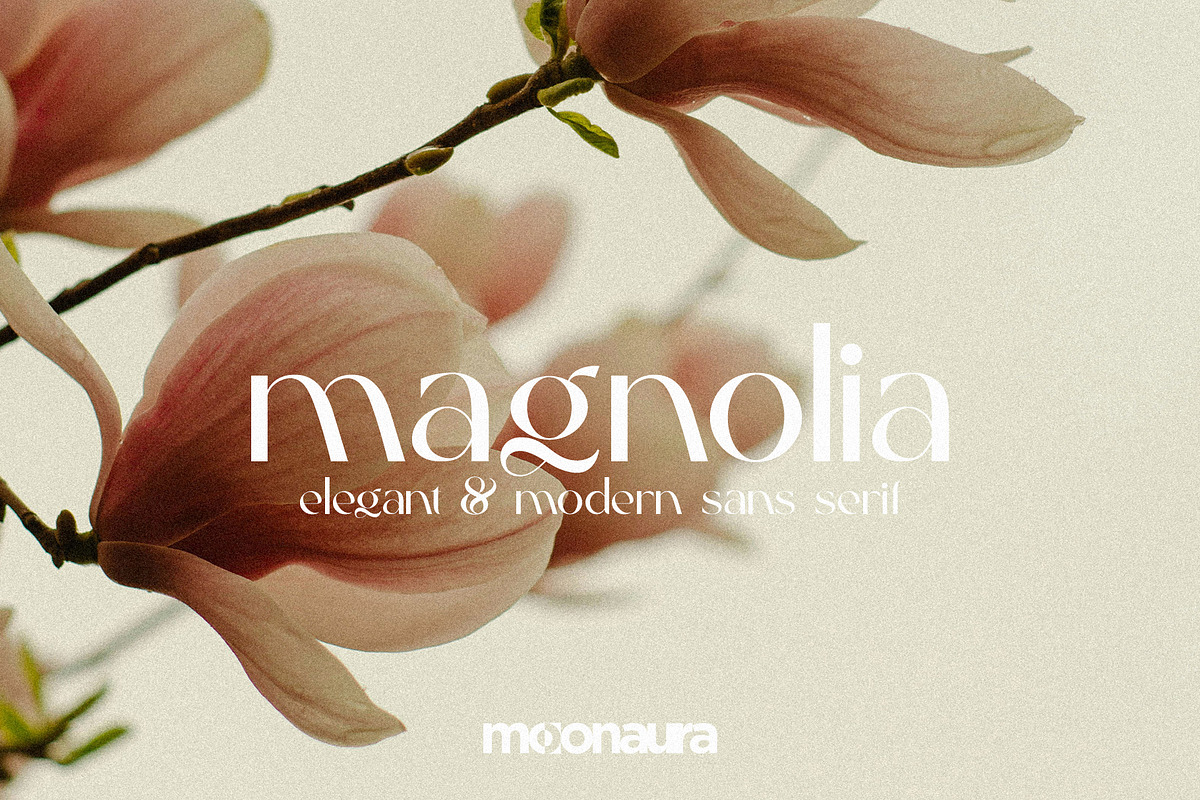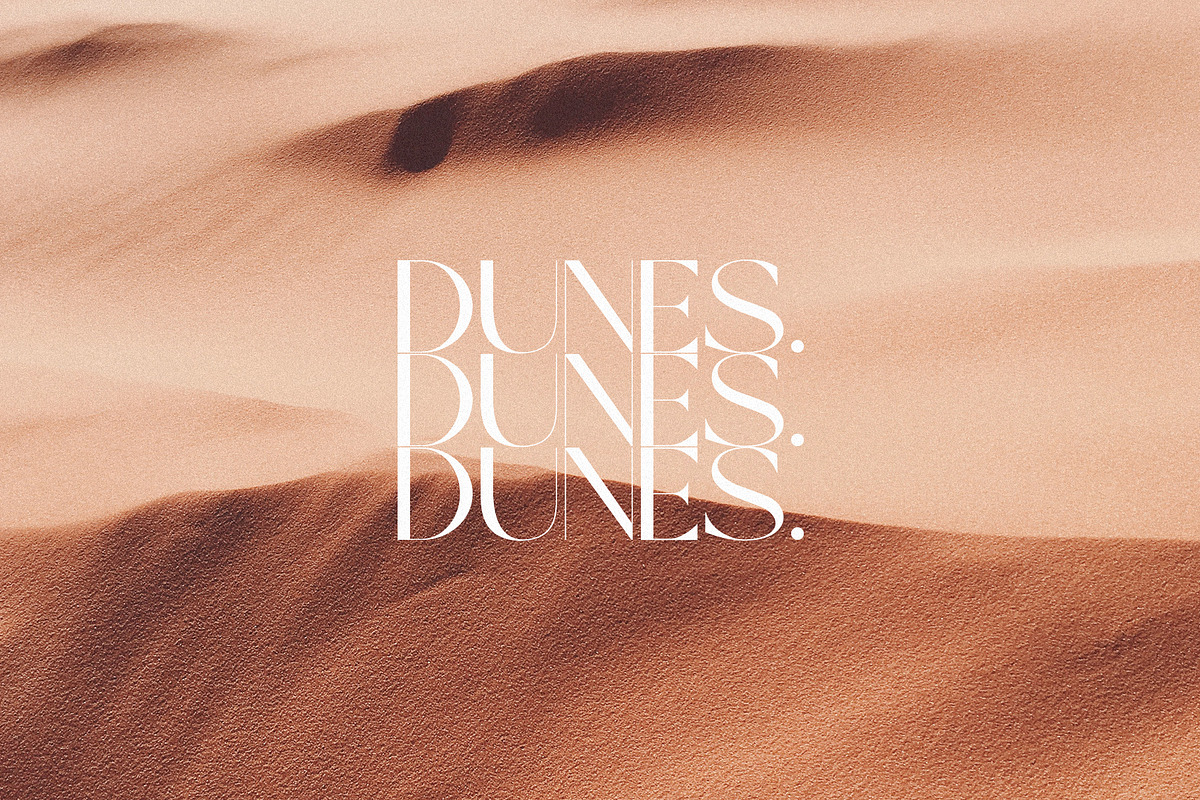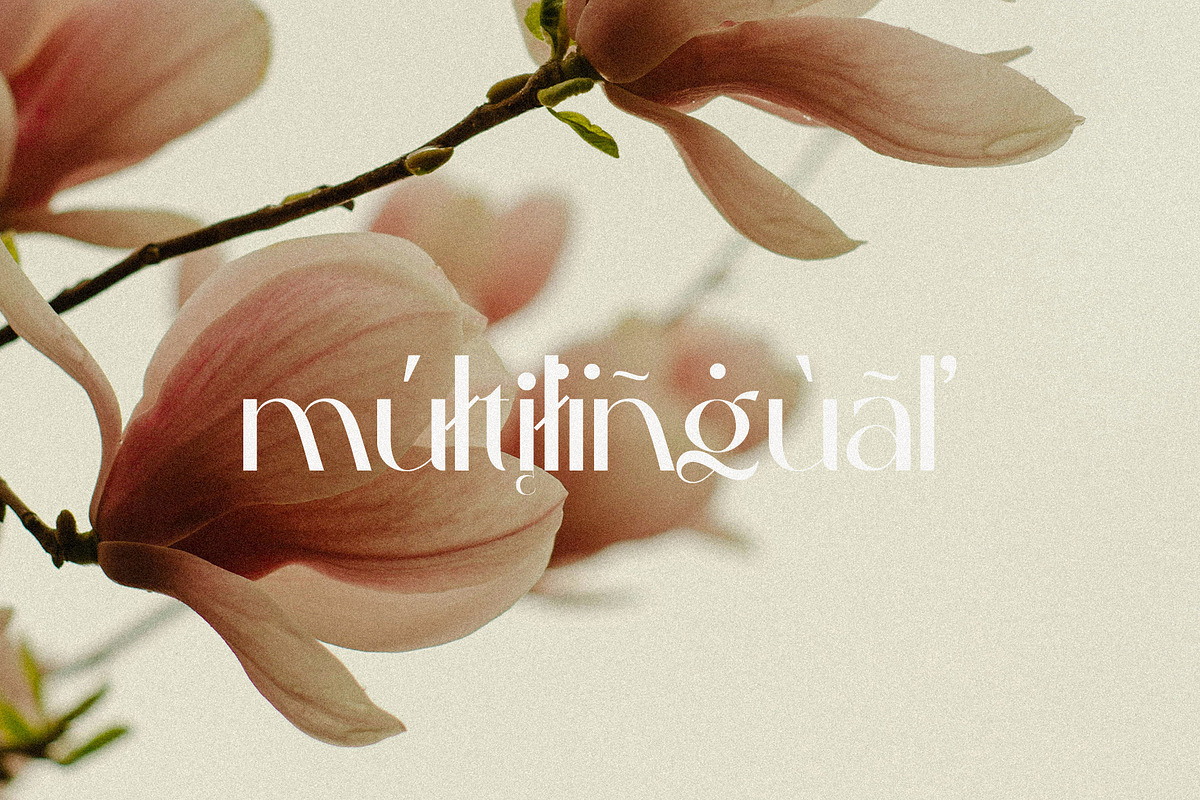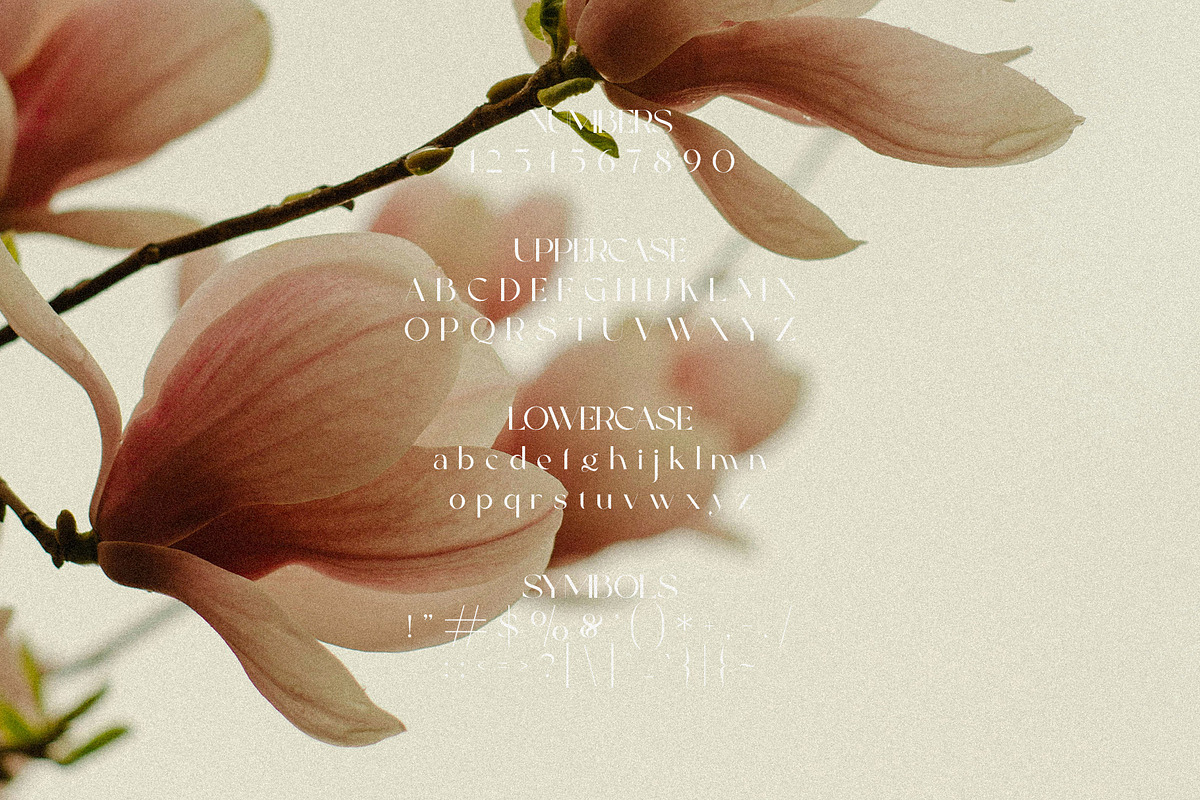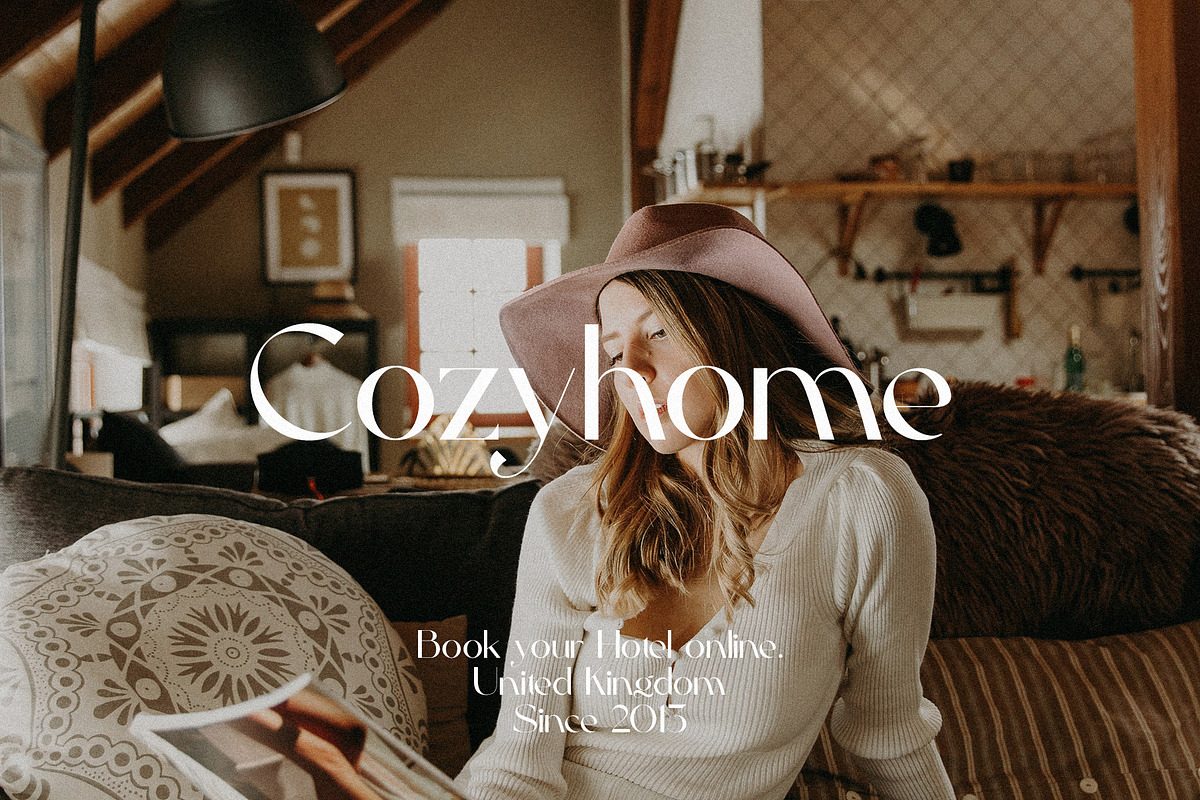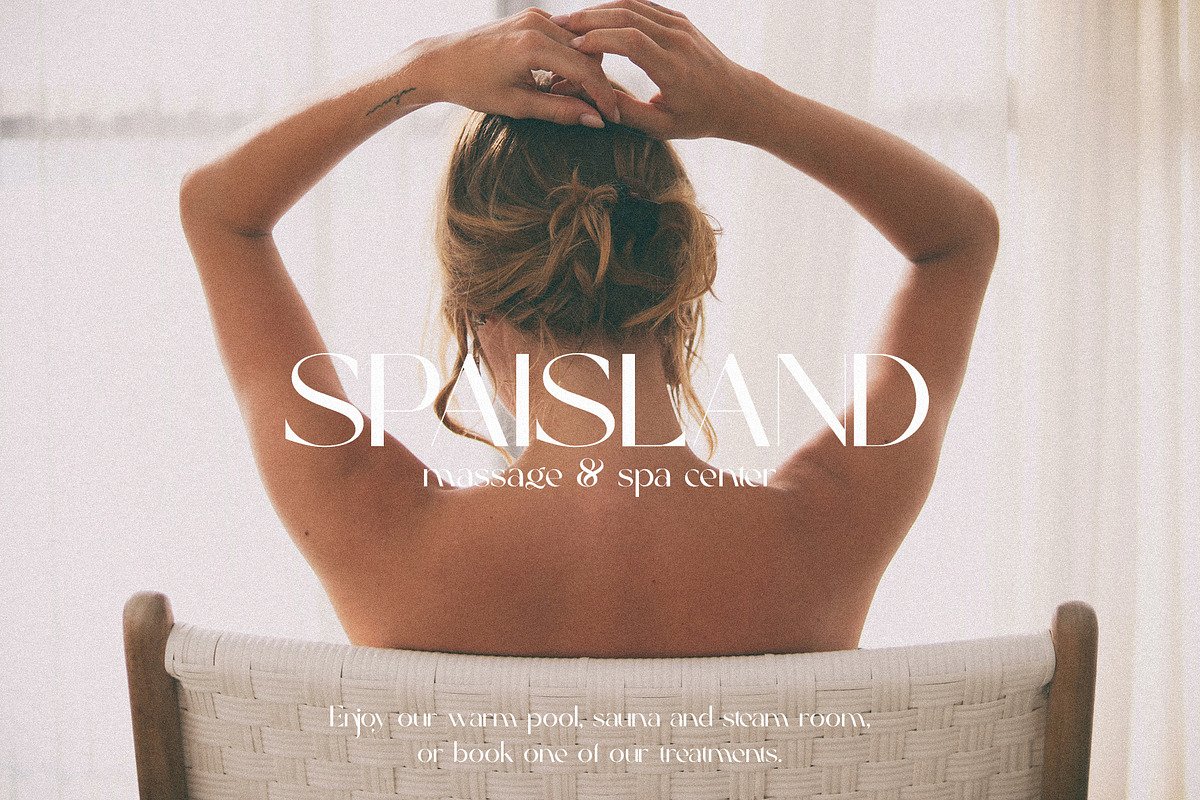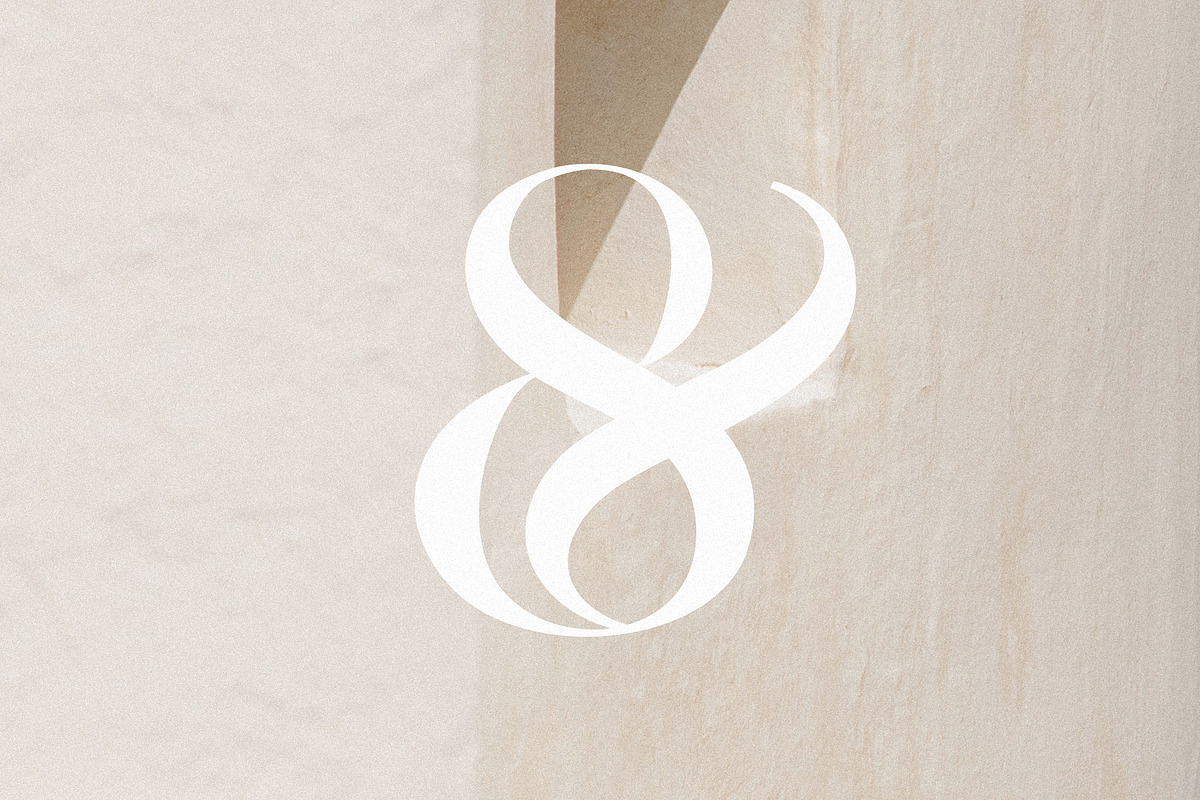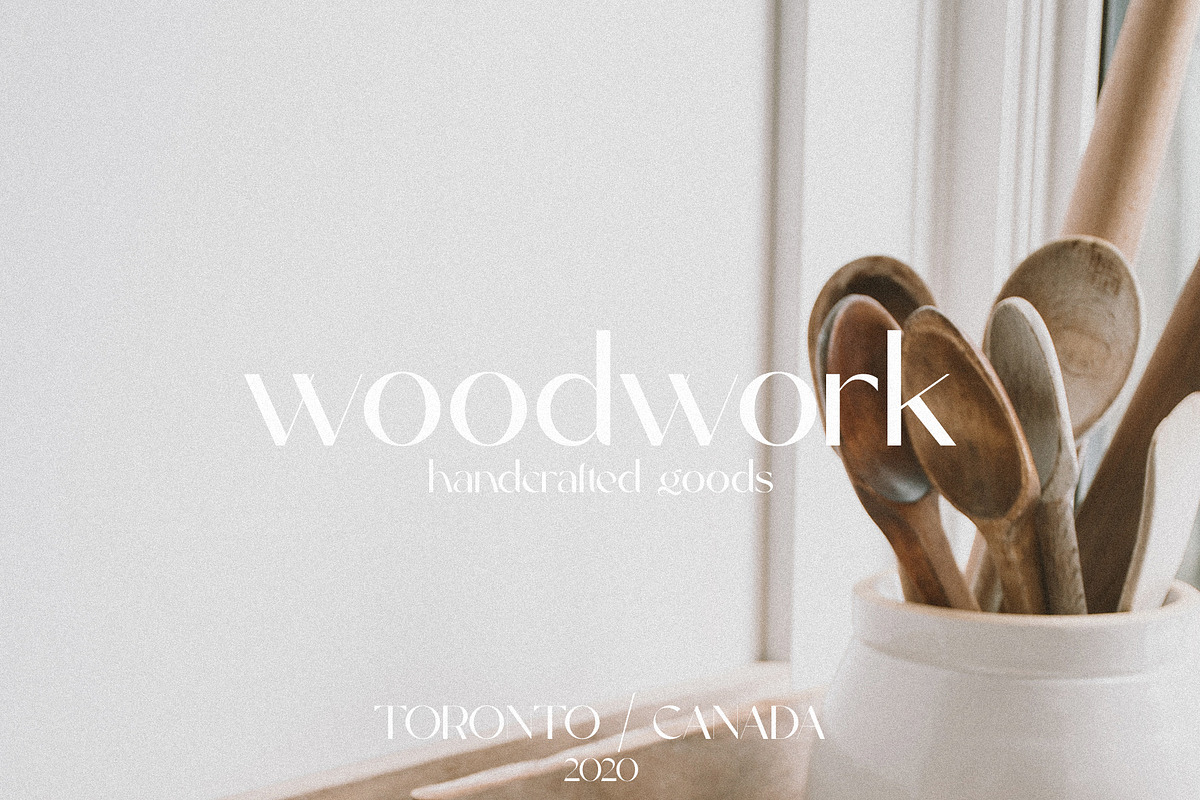
Magnolia - Elegant & Modern Sans
Magnolia is an elegant and modern sans-serif typeface that blends sleek, clean lines with sophisticated curves. Its minimalist design makes it versatile for both print and digital mediums. Ideal for contemporary branding, editorial design, and high-end websites, Magnolia offers a refined look while maintaining readability. With balanced proportions and a subtle touch of character, it exudes professionalism and style, perfect for projects requiring a chic and polished aesthetic.